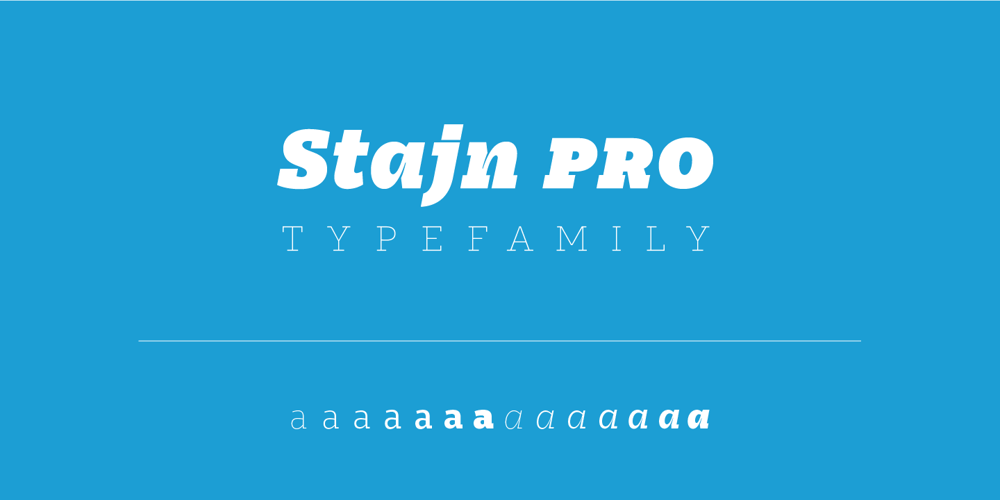
Stajn Pro
Stajn Pro font
Stajn Pro Font Family was designed by published by Anže Veršnik. Stajn Pro contains 14 styles and family package options. stajn-type.com — Stajn Pro Type Family Website where you can get DEMO version of Stajn Pro Book Stajn Pro was designed upon a main goal of using this typeface to set larger amount of text. The slightly condensed proportion allows for more content per page while large x height with its larger counters improves legibility and readability while used on smaller sizes. Despite the fact that Stajn Pro was designed as a body text Type Family, it works as well as a display too. Wide variety of weights as well as interesting, strong and at the same time beautiful character along with some stylistic alternate makes Stajn Pro a useful typeface in a field of editorial, magazine and promotional materials design. The Stajn Pro character includes some humanistic typeface characteristics, which add some softness and elegance in its strong and stable presence. More information about development, usage and characteristics of a Stajn Pro Type Family at stajn-type.com If you have any other questions please do not hesitate to write me at info@stajn-type.com